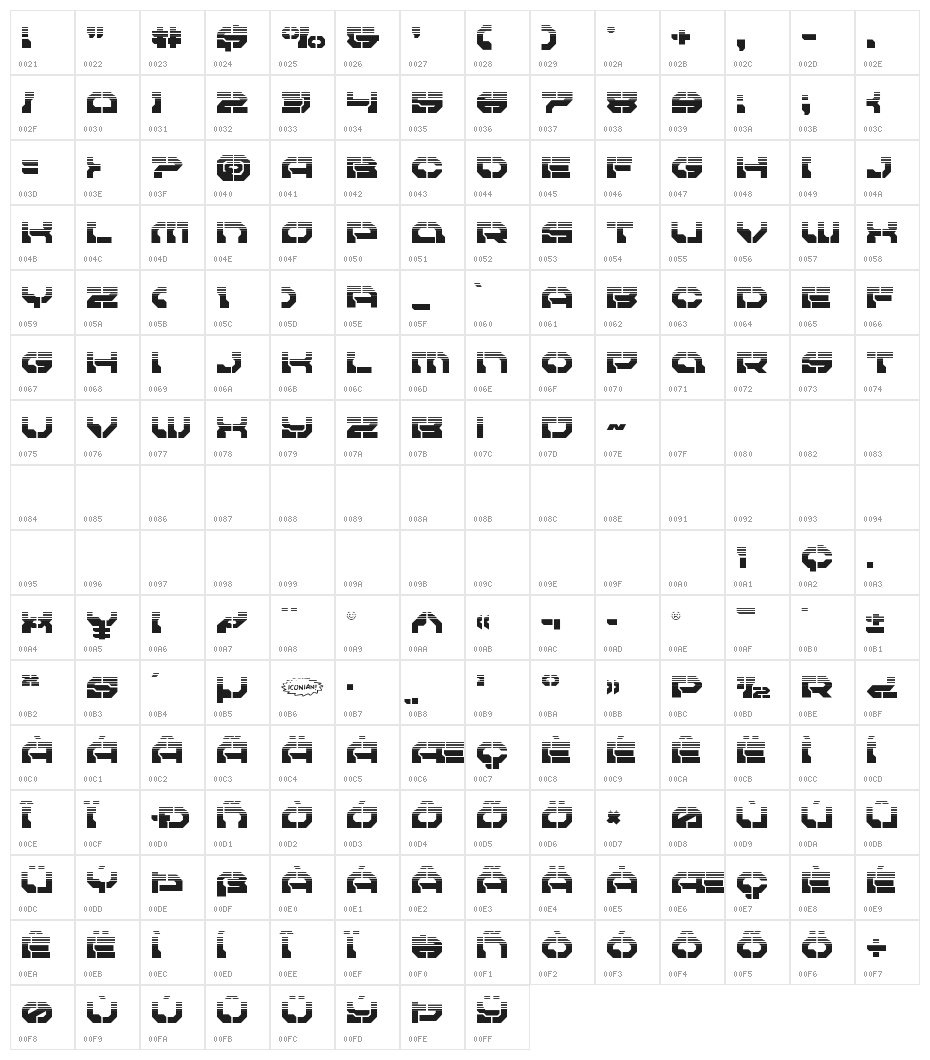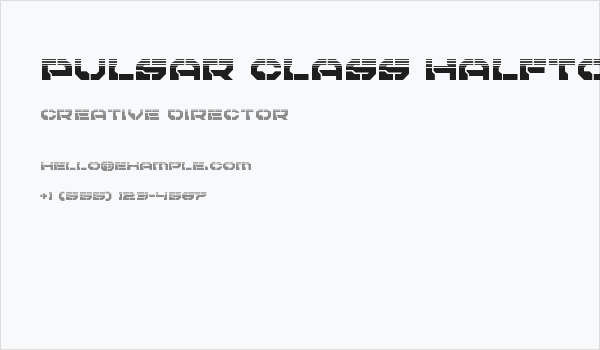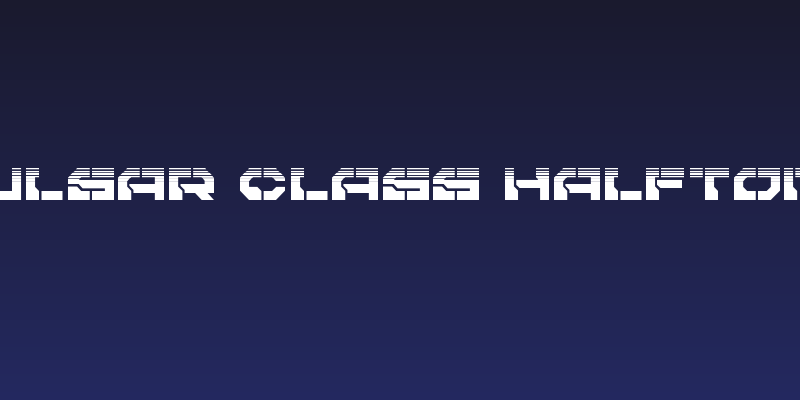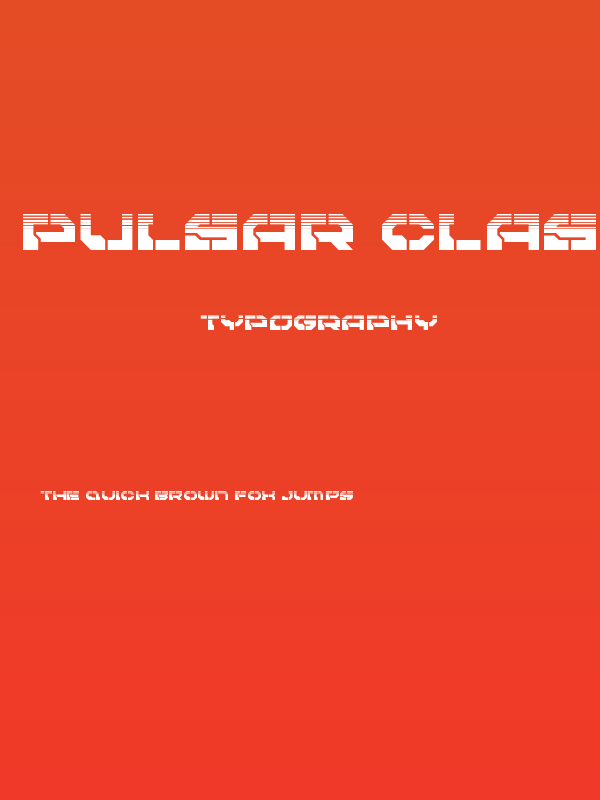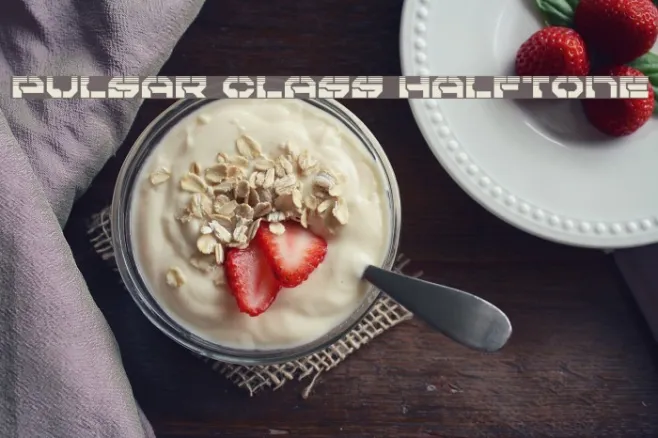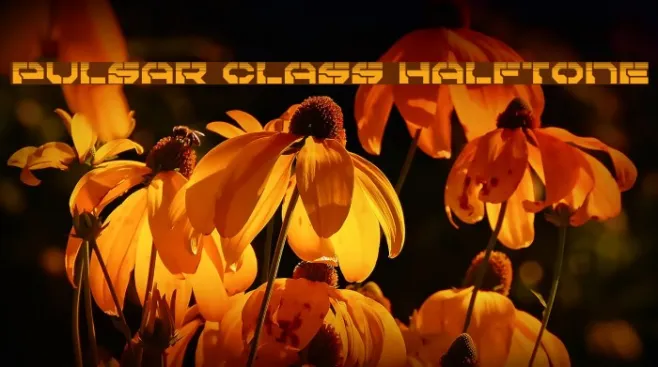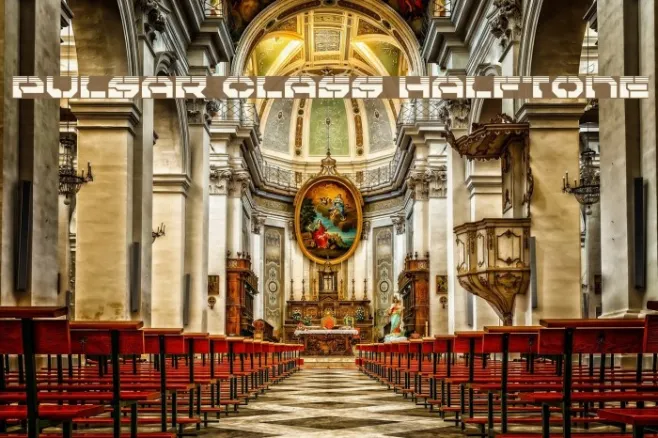
Pulsar Class Halftone Font
Pulsar Class Halftone Description
This font features a bold, futuristic design with a halftone effect that gives it a unique, digital appearance. The characters are constructed with a series of horizontal lines that create a sense of movement and modernity. The geometric shapes are sharp and angular, contributing to a tech-inspired aesthetic. The uppercase and lowercase letters maintain a consistent style, while the numbers and special characters are equally distinctive, making this font ideal for projects that require a strong visual impact.
| Proposed Projects | Ideal for technology-themed projects, digital artwork, sci-fi posters, and modern branding. |